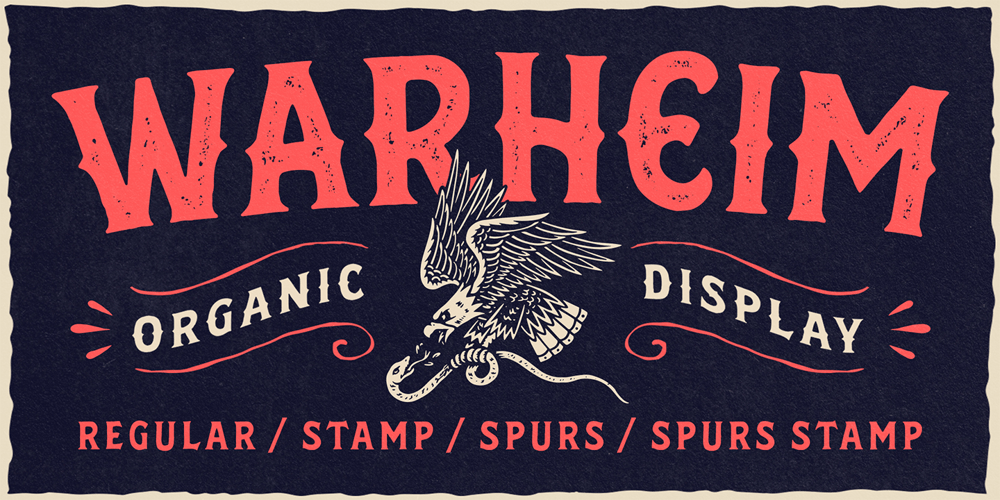
Warheim
Warheim font
Warheim Font Family was designed by Septianto Nugroho and published by Ironbird Creative. Warheim contains 4 styles and family package options. Warheim is a organic display typeface with handdrawn feel. Comes with regular, stamp, spurs and spurs stamp styles. This typefaces is perfect for people looking for vintage aesthetic and organic feel. Suitable for any graphic designs such as branding materials, t-shirt, print, logo, poster, t-shirt, quotes .etcWe hope you enjoy the font, please feel free to comment if you have any thoughts or feedback. Thanks for purchasing and have fun!Regards,Ironbird Creative